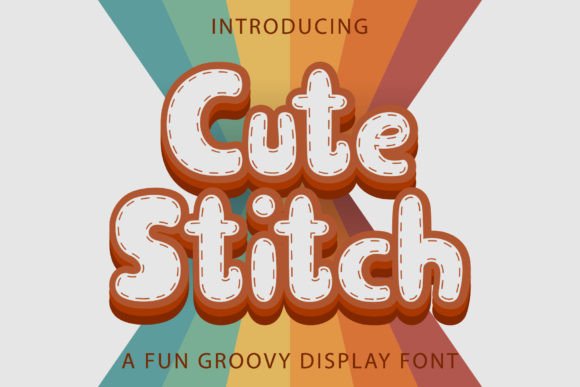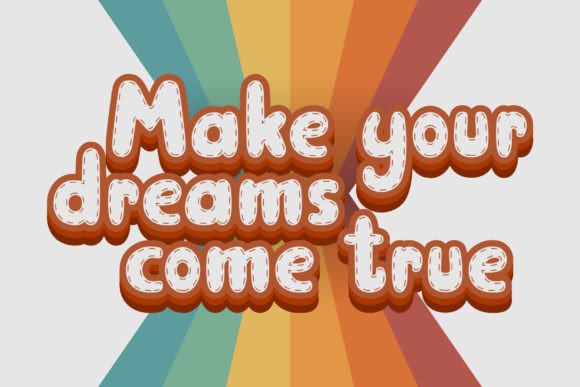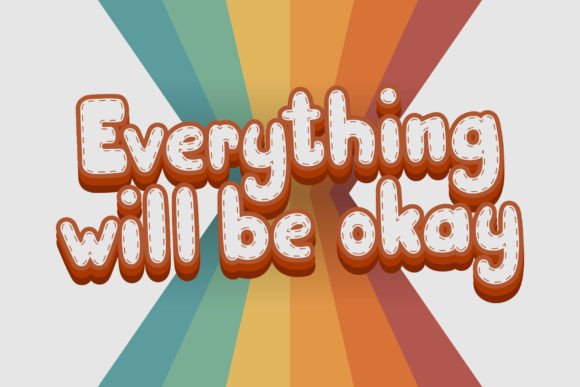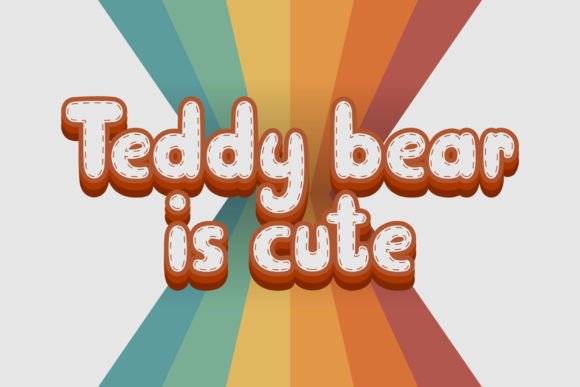
Cute Stitch Font
About the Cute Stitch Font
Welcome to the world of Cute Stitch Font, a typeface that will inspire your next great project. Cute Stitch is a versatile, stylish,groovy, and playful retro display font, perfect for a wide spectrum of applications such as greeting cards, headlines, and more! Add it to any of your creative projects, and it will give them a romantic and exquisite fee.
Cute Stitch’s playful retro style shines brightest in headlines, short titles, and logos where its quirky charm can be fully appreciated. It’s ideal for branding projects targeting a younger demographic, greeting cards, posters, and packaging for products with a vintage or whimsical aesthetic. Avoid using it for body text or lengthy paragraphs; its decorative nature makes it less legible for extended reading.
Pairing Cute Stitch effectively requires considering its retro energy. A clean sans-serif like Open Sans or Lato provides a modern counterpoint, balancing its playful forms. Alternatively, a classic serif like Garamond or Playfair Display adds a touch of sophistication, creating a more refined yet still engaging contrast.
The font’s core personality is undeniably playful and friendly, with a touch of retro nostalgia. Its slightly uneven forms inject a handmade quality, making it perfect for projects that value a unique and approachable feel.
Cute Stitch Font Usage Examples
Cute Stitch Font Example